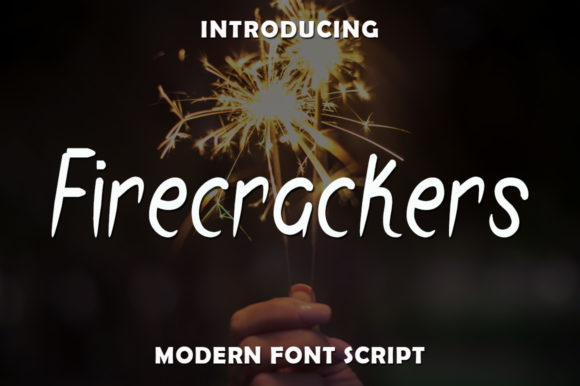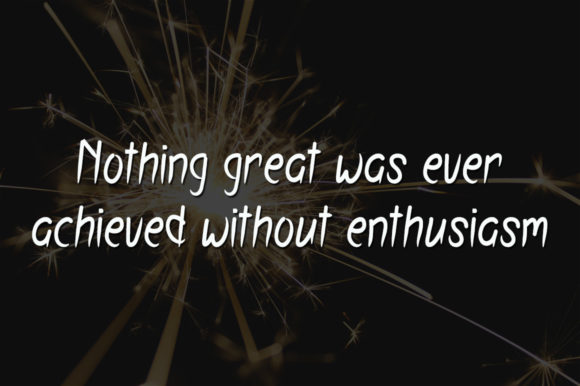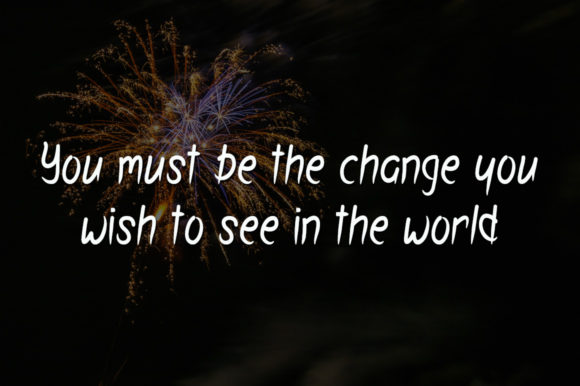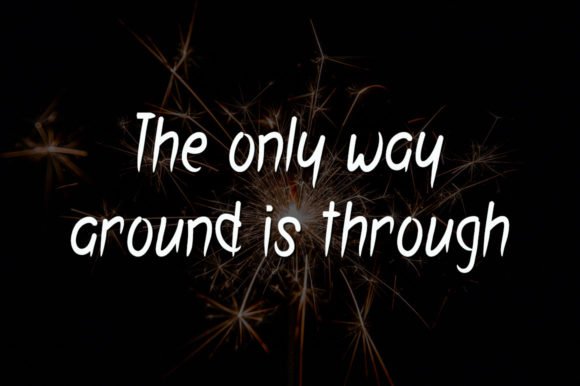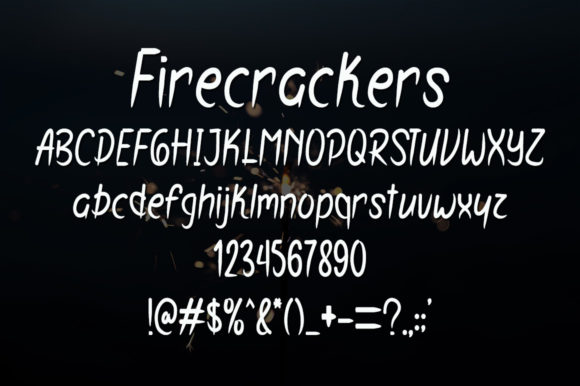
Firecrackers Font
About Firecrackers Font
Firecrackers is a sweet and well balanced handwritten font. Its natural and unique style makes it incredibly fitting to a large pool of designs.